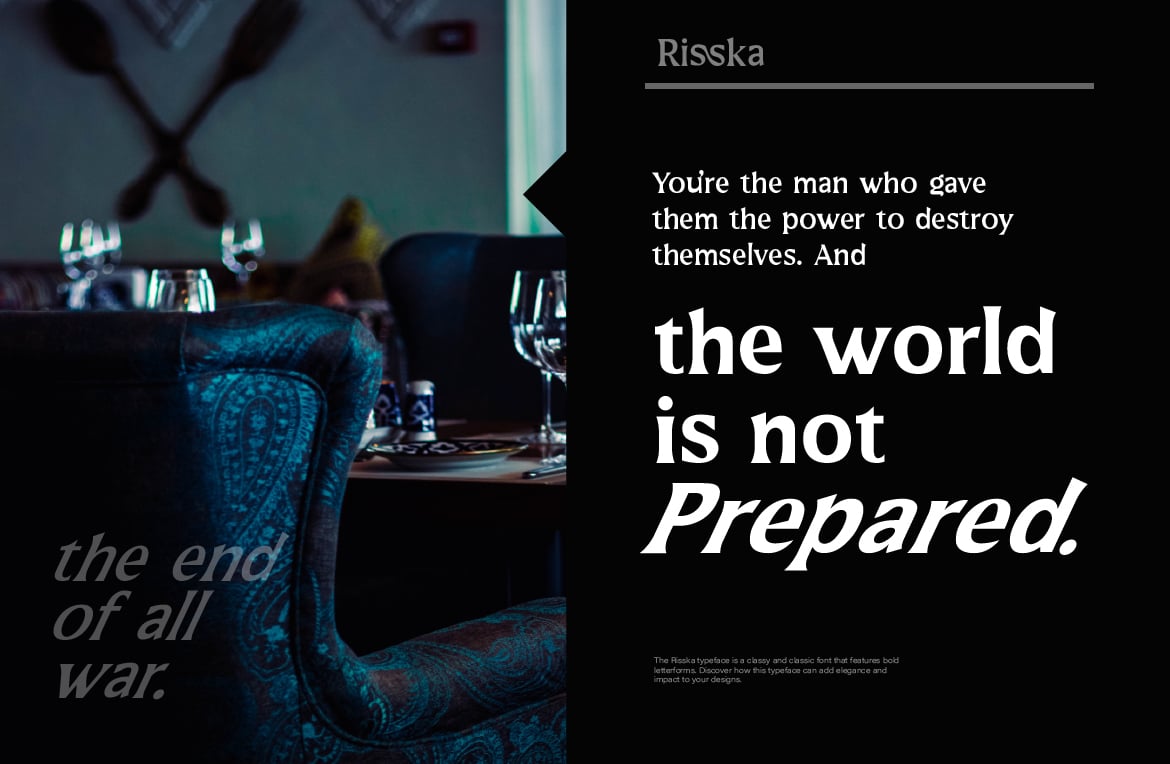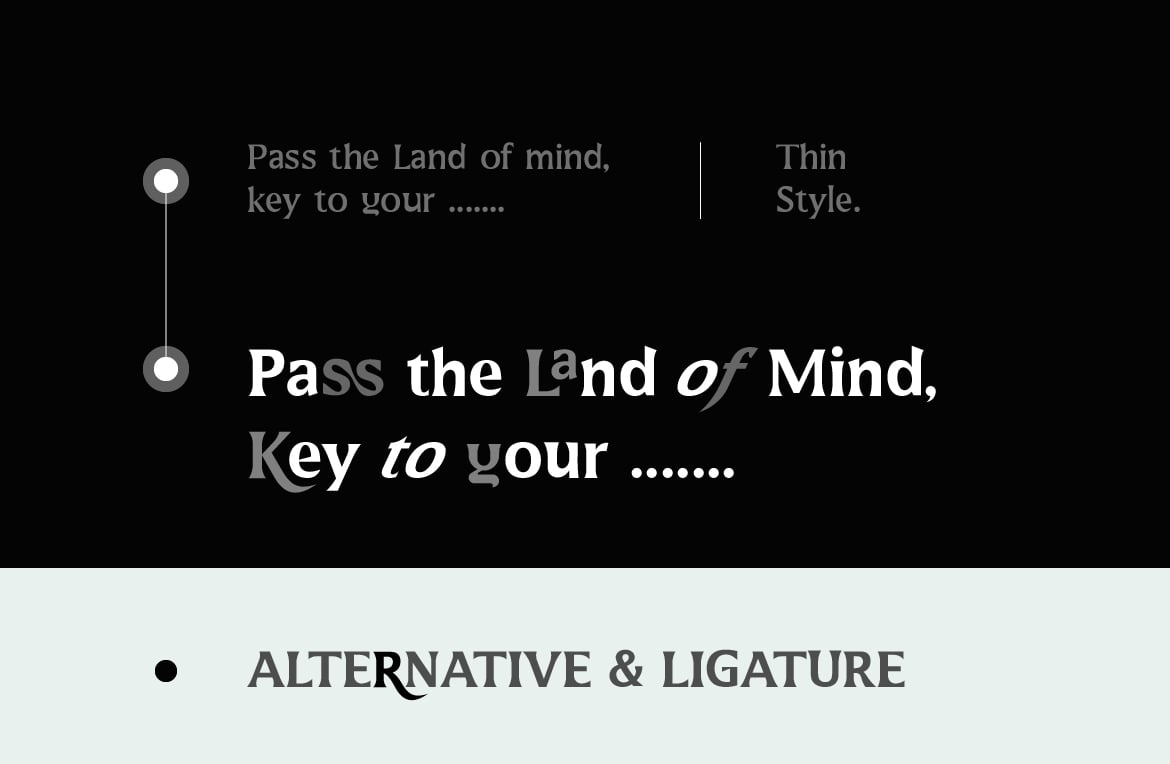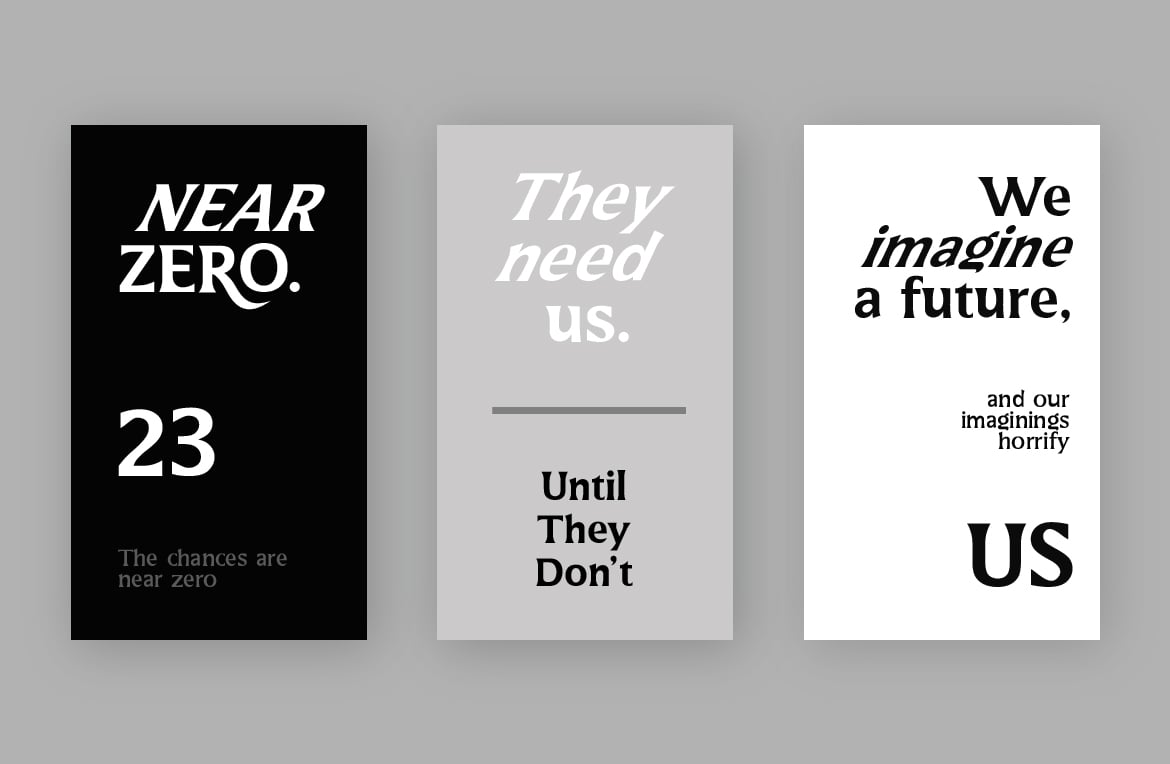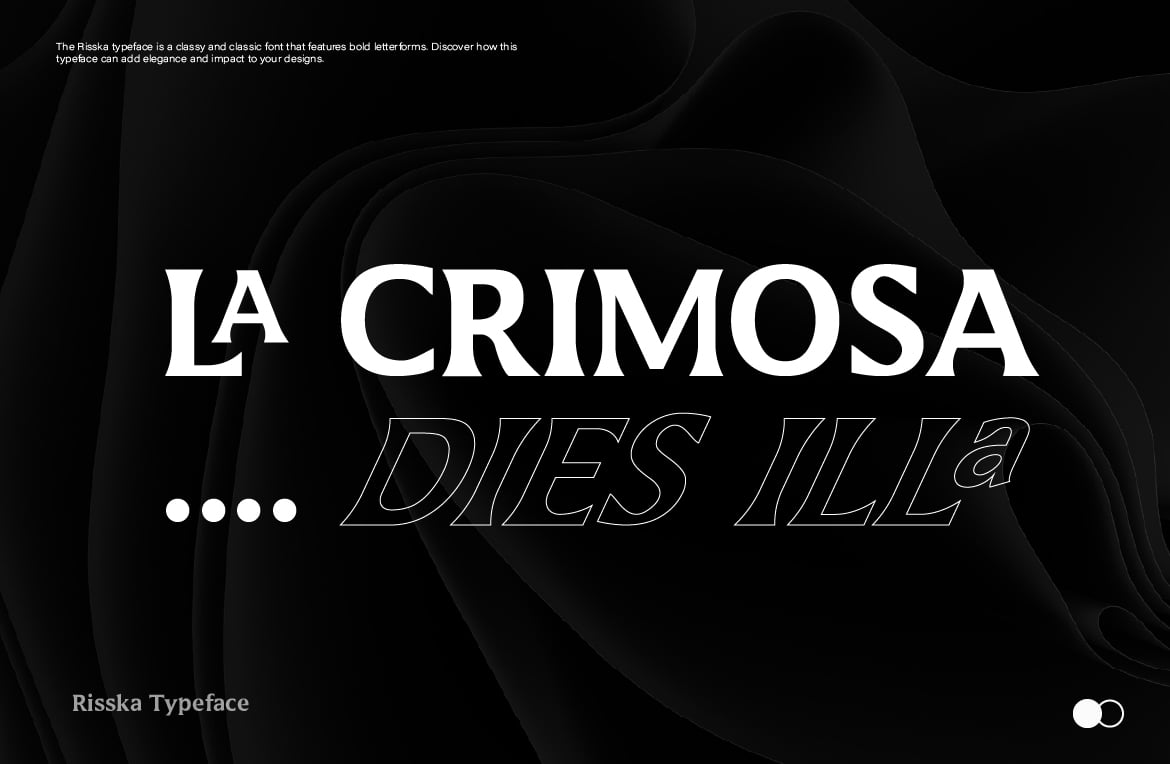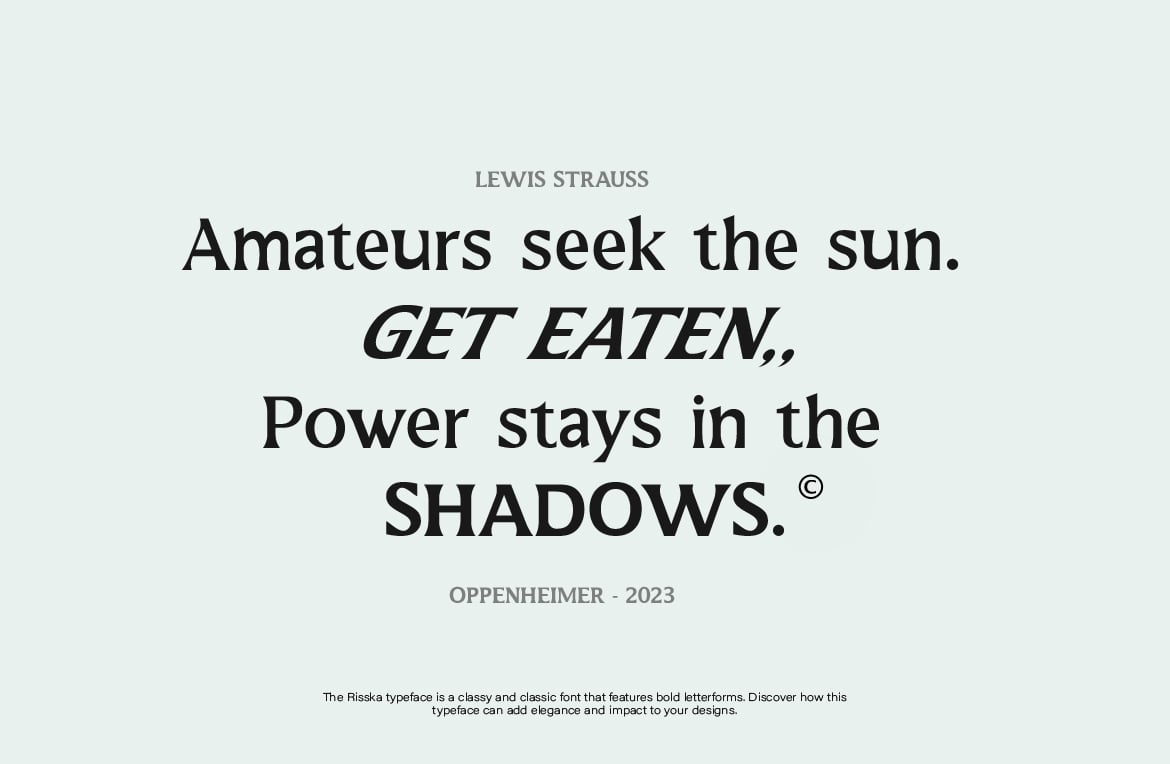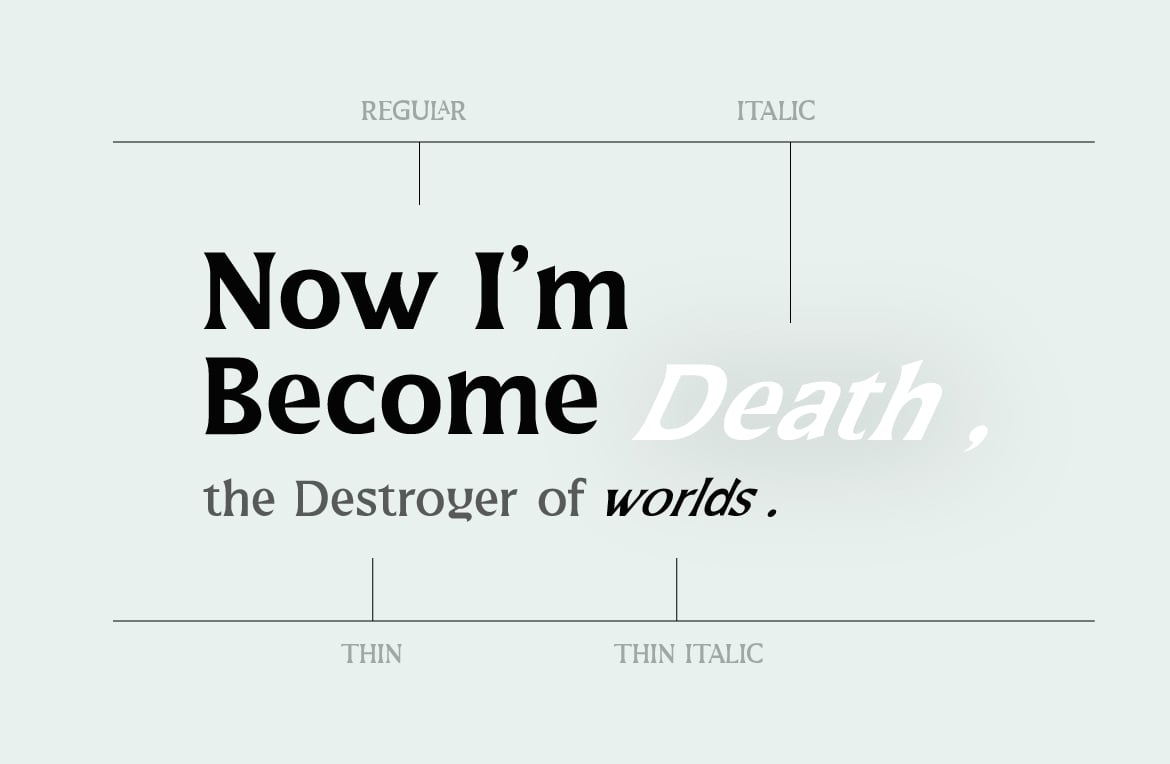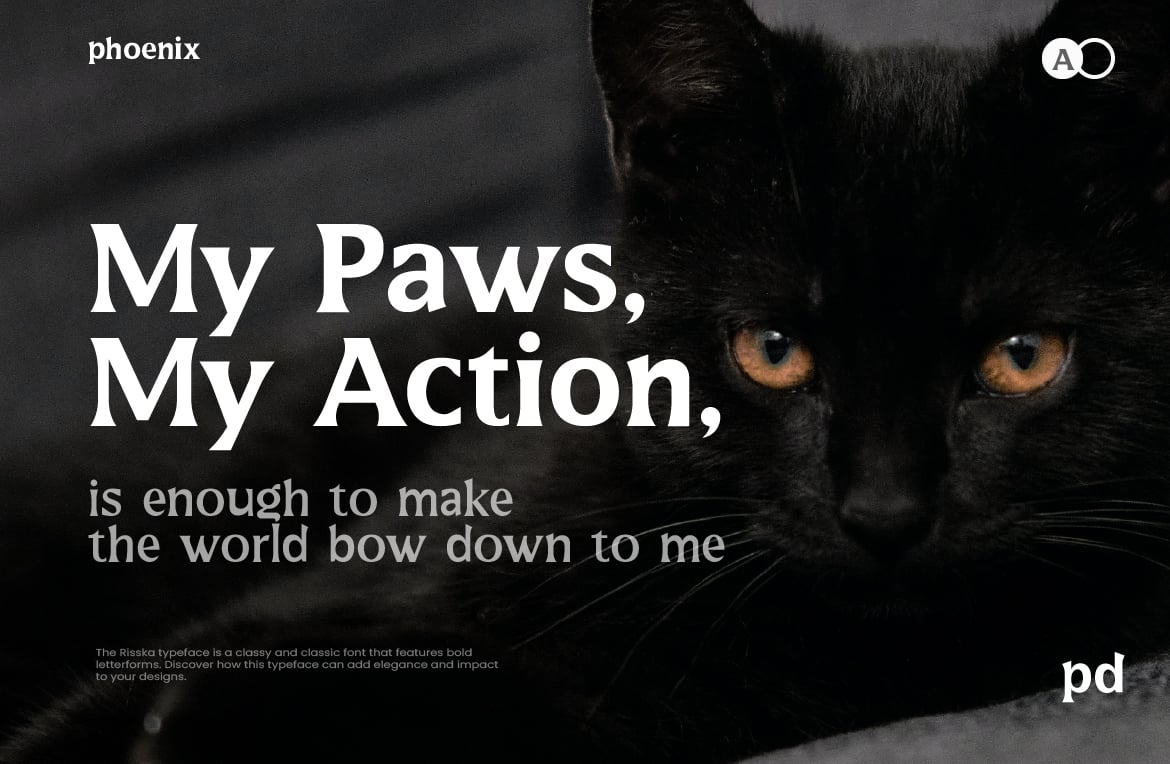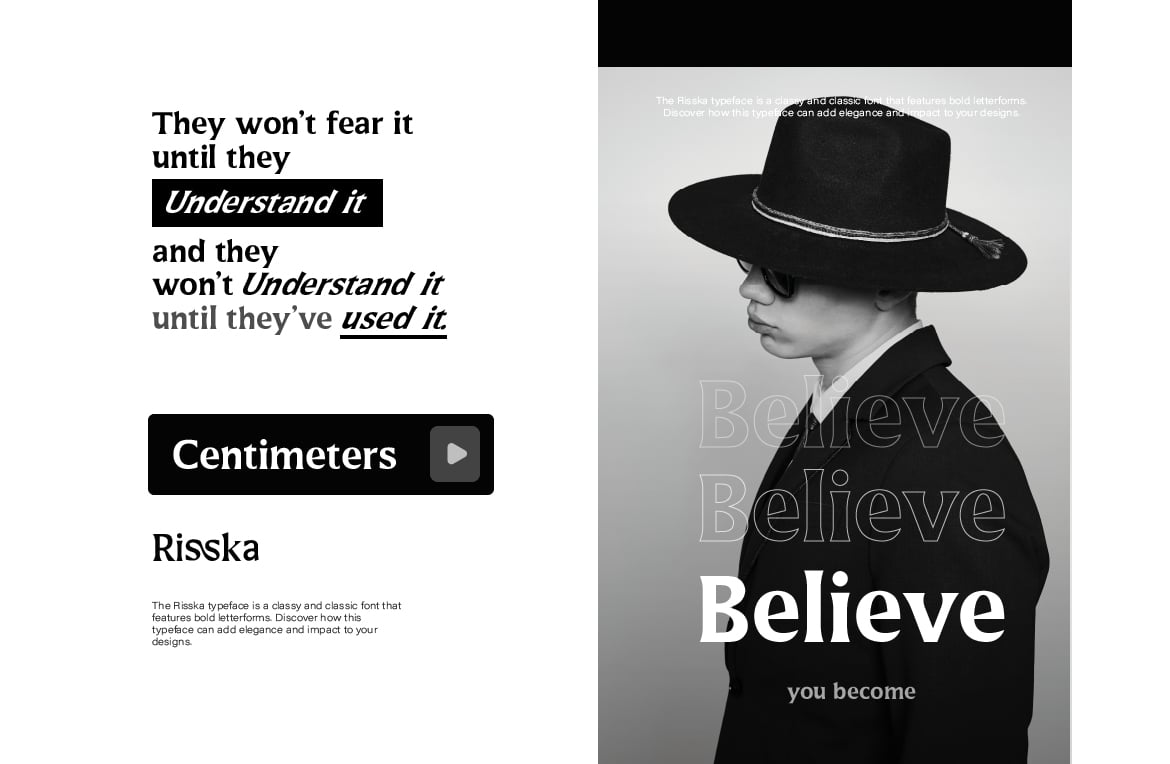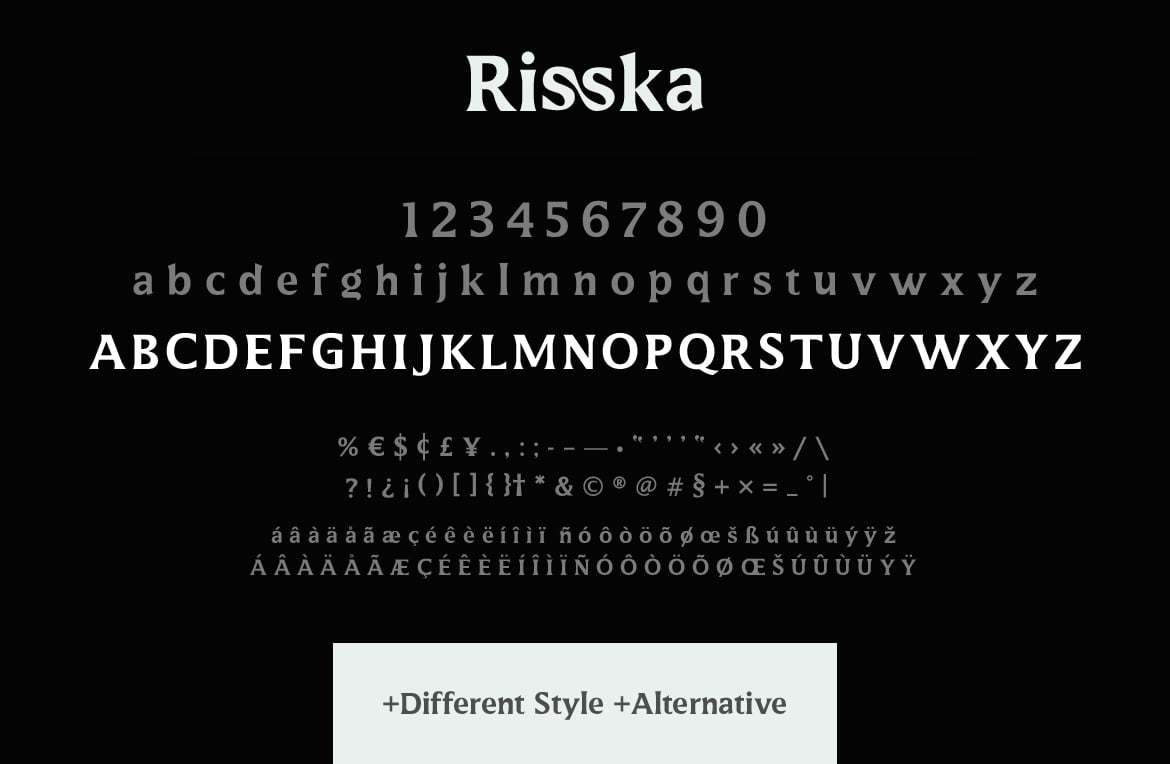
Risska Typeface
The Risska typeface is a classy and classic font that features bold letterforms. Discover how this typeface can add elegance and impact to your designs.